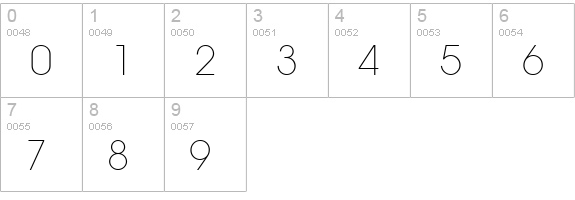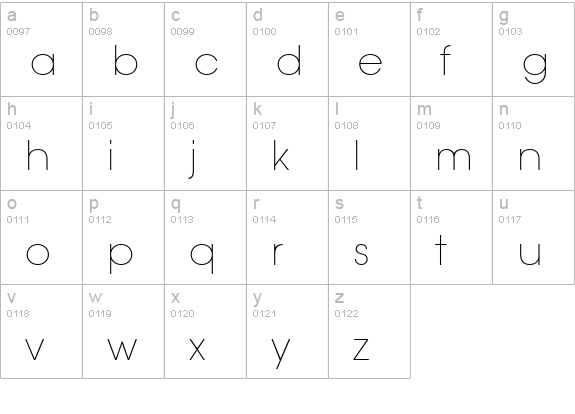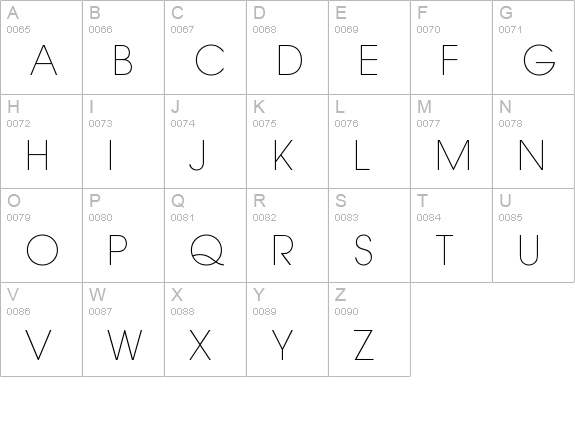
Trendex Light SSi Extra Light is a refined, elegant variant in the Trendex typeface family \xE2\x80\x94 well suited to elegant body text, refined sub-headings, and luxury branding.
Trendex Light SSi Extra Light font is a stunning display font that effortlessly combines elegance and modernity. With its delicate and refined letterforms, this font exudes a sense of sophistication that is perfect for a wide range of design projects. The extra light weight of Trendex Light SSi adds a touch of delicacy and grace to any text it is applied to, making it the ideal choice for titles, headlines, logos, and branding materials. Whether you're working on a magazine spread, website design, or packaging, this font will surely elevate your project to new heights. What makes Trendex Light SSi Extra Light font even more appealing is the fact that it is available for free download at FontsMarket.com. Yes, that's right! You can get your hands on this exceptional font without spending a penny. This generous offer allows designers, creatives, and enthusiasts to access a high-quality and professionally designed font without breaking the bank. FontsMarket.com is a trusted source for font downloads, offering a vast collection of fonts that cater to various design needs. Their user-friendly website makes it easy to navigate and find the perfect font for your projects. Simply visit FontsMarket.com, search for Trendex Light SSi Extra Light font, and click the download button to add this beautiful typeface to your collection. So why wait? Embrace the elegance and versatility of Trendex Light SSi Extra Light font today. Download it for free at FontsMarket.com and unlock endless possibilities for your design projects.